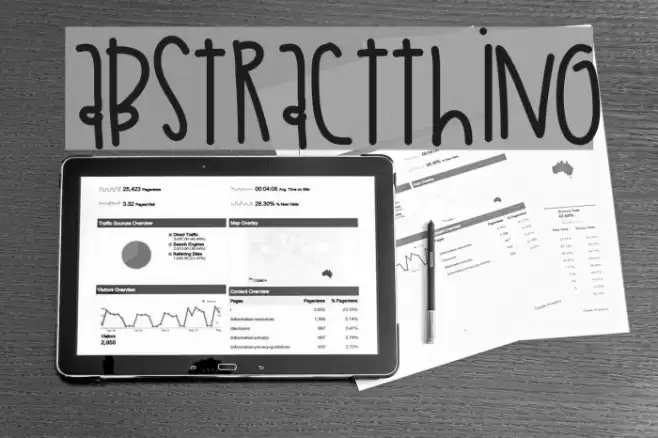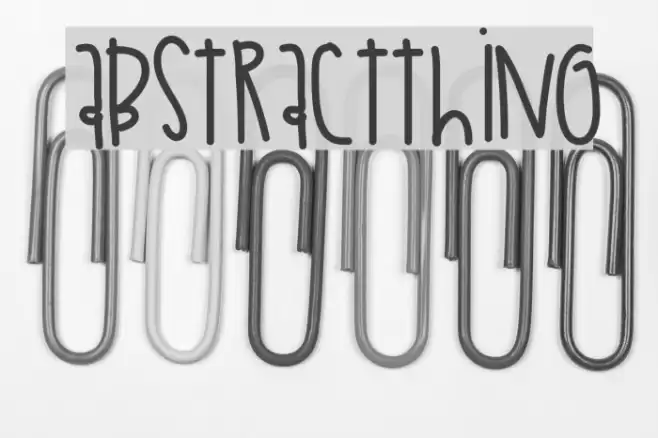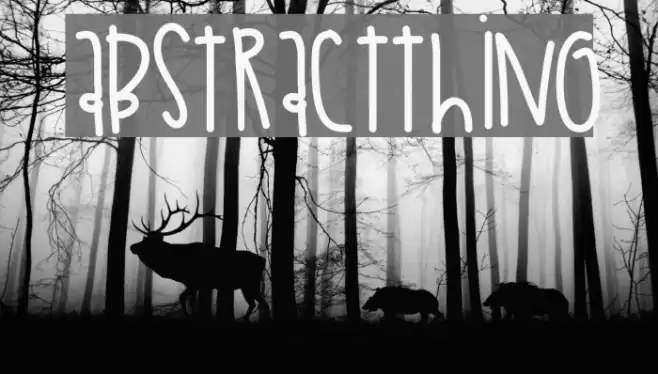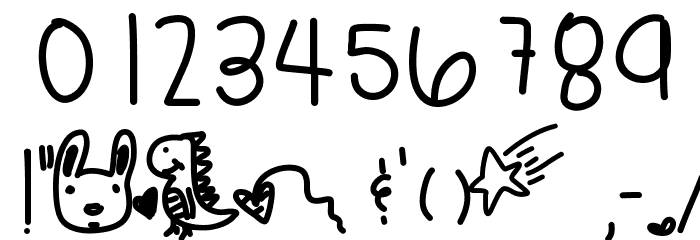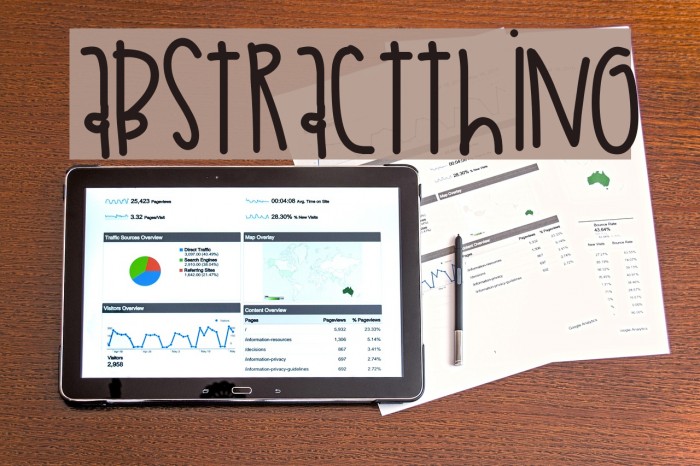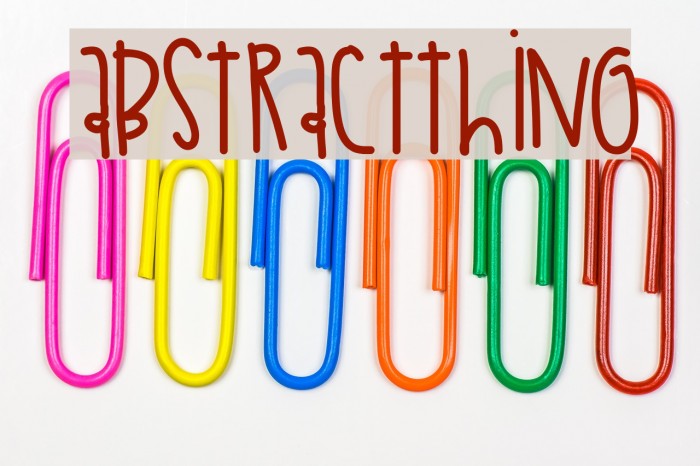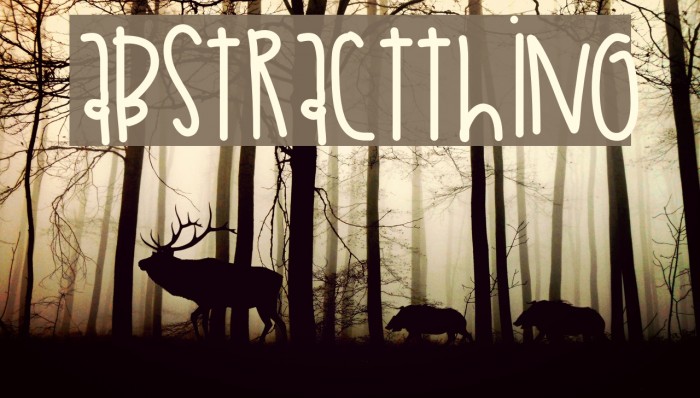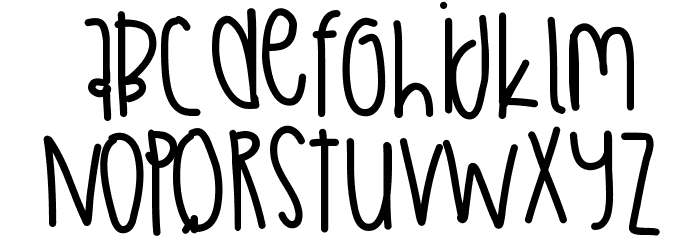
AbstractThing Font
AbstractThing Description
This playful and whimsical font features tall, narrow letters with a hand-drawn aesthetic. The characters have a consistent stroke width, giving them a uniform appearance while maintaining a casual, informal style. The uppercase and lowercase letters are distinct yet harmoniously designed, with rounded edges and a slightly irregular baseline that adds to the font's charm. The numbers and special characters follow the same playful theme, making this font suitable for creative and fun projects.
A playful, hand-drawn font with tall, narrow letters and a whimsical style from Kids fonts.
- Proposed Projects: Ideal for children's books, greeting cards, playful branding, and creative posters.